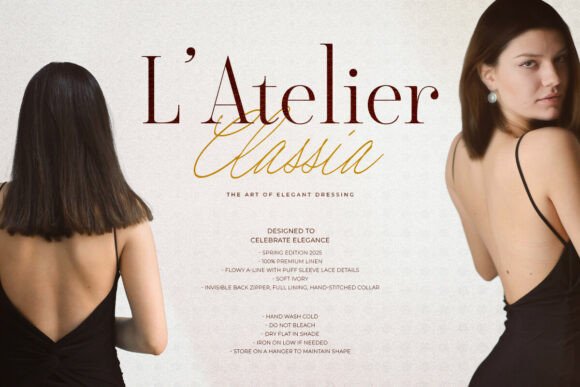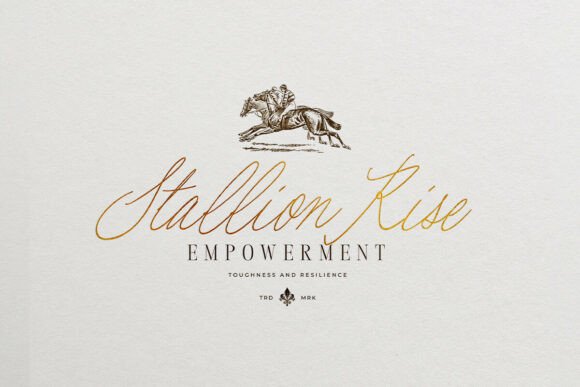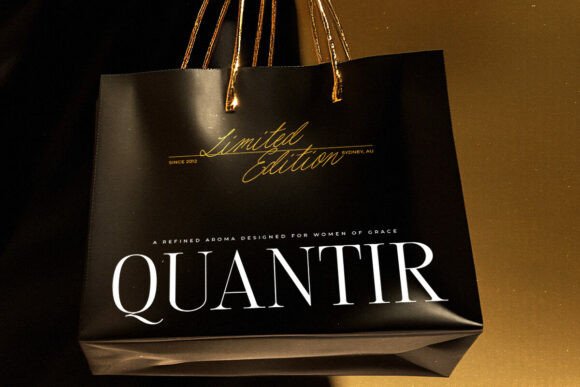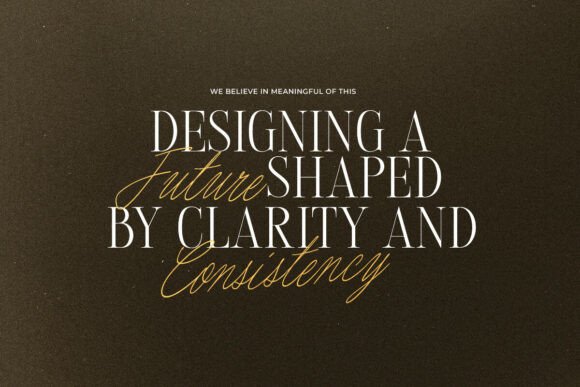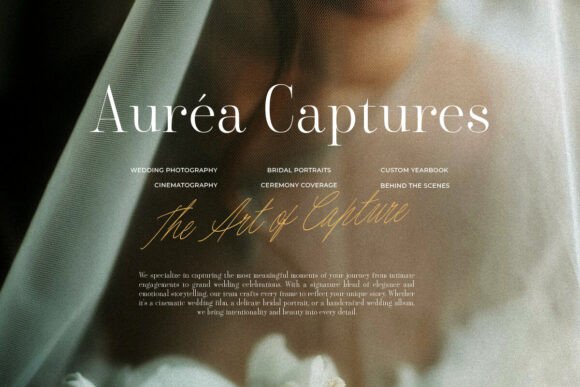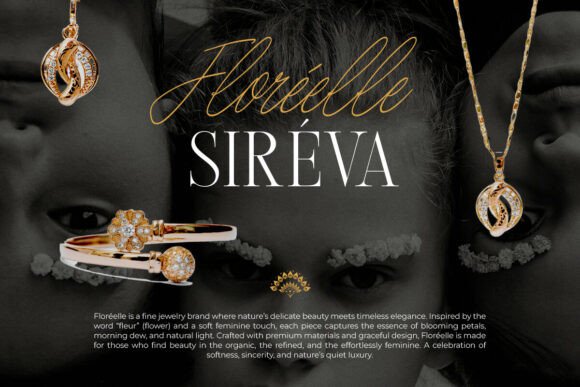
The Perfect Pair: Elevating Your Design with Couple Match Font
Do you remember that moment when you finally find the perfect font combination for your project? The one that makes your design stand out, and leaves a lasting impression on your audience? For designers, this moment is pure bliss. It’s the culmination of hours of searching, experimenting, and perfecting the perfect pair. And that’s exactly what Couple Match Font offers – a luxury combination of elegant serif and handwritten script, designed to elevate your design to new heights.
Couple Match Font is a sophisticated duo that combines the modern, classy feel of a tall serif with the unique charm of a handmade script. This font pair is perfect for any project that demands luxury and modern looks, from wedding invitations to branding and beyond. With its multilingual support, number, and symbol capabilities, Couple Match Font is a versatile tool that will help you create stunning designs with ease.
Couple Match Font Key Features
- Font Size and Style: The font family includes various weights, from Light to Bold, allowing designers to create a range of visual effects and moods. The font size is scalable, making it suitable for use in various design contexts.
- Unique Characteristics: The font’s unique, hand-drawn design features intricate details and subtle flourishes, giving it a romantic and whimsical feel.
Couple Match Font Review
As a designer, I was excited to try out the Couple Match Font. The idea of a font that’s specifically designed to match the emotions of love and relationships is intriguing, and I was eager to see if it delivered.
- The font’s aesthetic is undeniably romantic and perfect for wedding invitations, love letters, or any other project that requires a touch of whimsy.
- The font’s pairing options are well-designed, making it easy to match the font with other typography to create a cohesive look.
- The font’s customizability is excellent, with options to adjust the spacing, size, and style to suit your needs.
- The font’s readability can be a bit of an issue, especially at smaller font sizes. The romantic feel can sometimes come across as cluttered or overwhelming.
- The font’s compatibility with certain software or operating systems may be limited, which can be frustrating for designers who need to work across different platforms.
While the Couple Match Font has its limitations, I believe it’s a great addition to any designer’s toolkit. Its unique aesthetic and customization options make it perfect for projects that require a touch of romance and whimsy. With a bit of tweaking and adjustment, this font can be a real showstopper.
Couple Match Font Practical Application Guide
For best results, use Couple Match Font in a bold or italic style to emphasize the matching couple’s text.
Couple Match Font is ideal for:
- Love-themed social media graphics
- Valentine’s Day and anniversary cards
Remember to use Couple Match Font in a way that complements the overall design and message of your project.